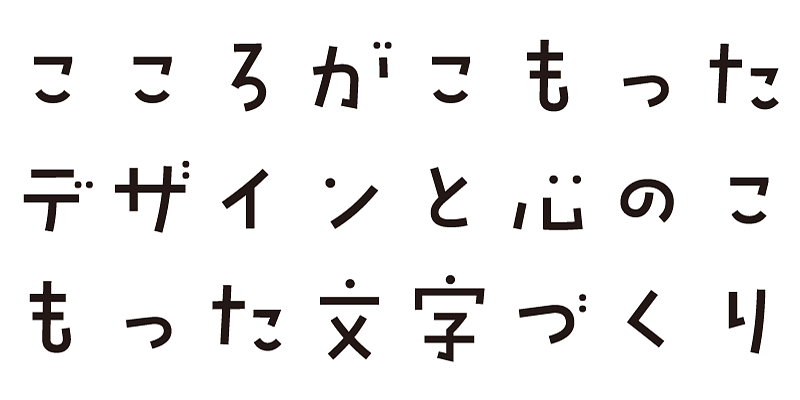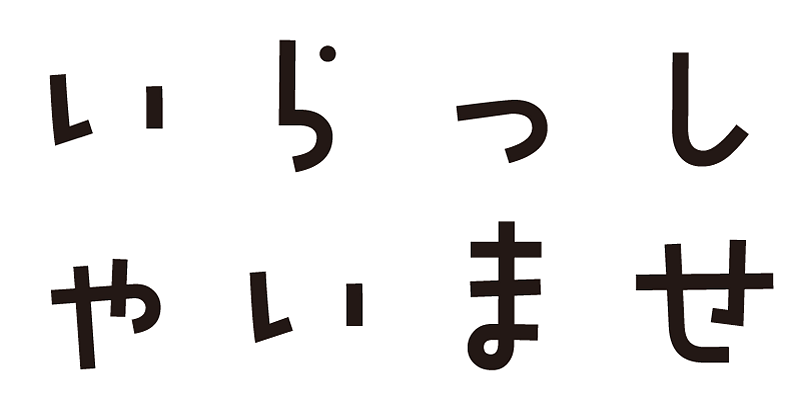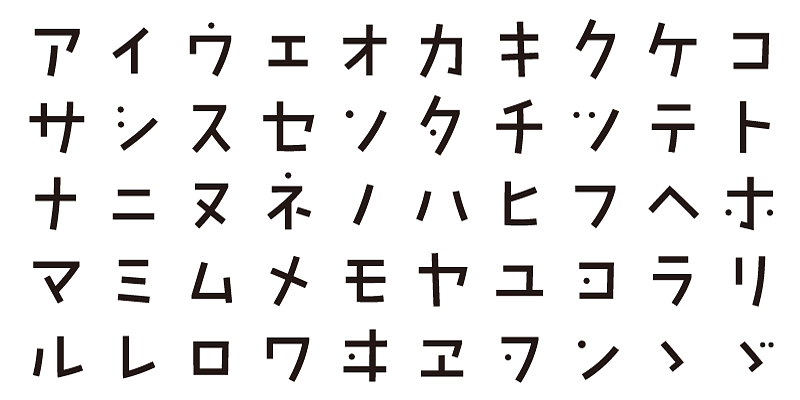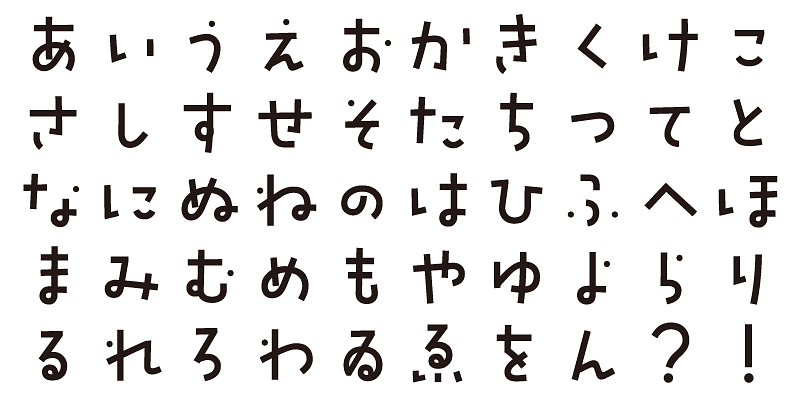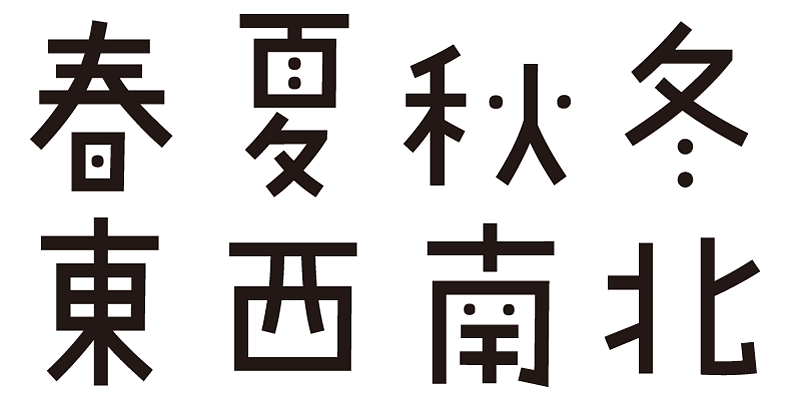
This typeface is relaxed and leisurely, with a gentle and light elegance.
This font includes 1,000 kanji characters, as well as hiragana, katakana, alphanumeric characters, and punctuation marks.
We design typefaces with the hope that they will add underlying meaning to words expressed. We wish the user to feel good and experience comfort and joy when using these typefaces.